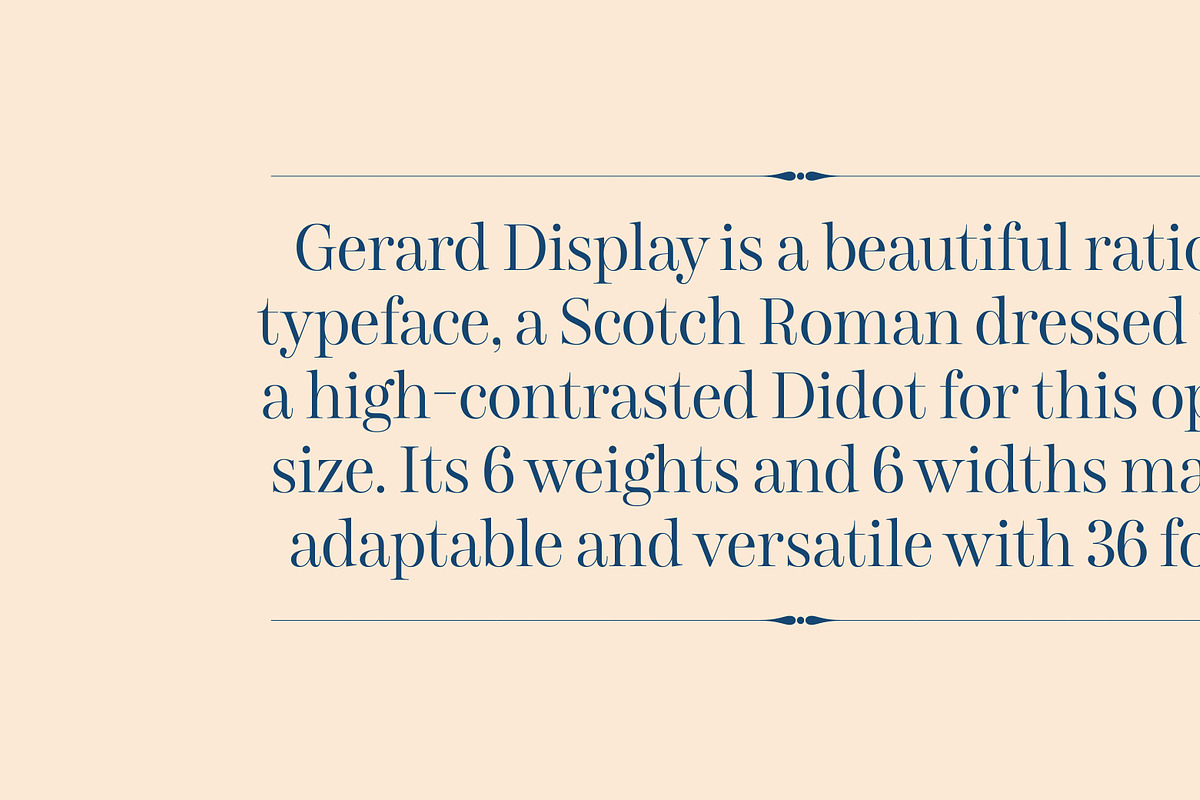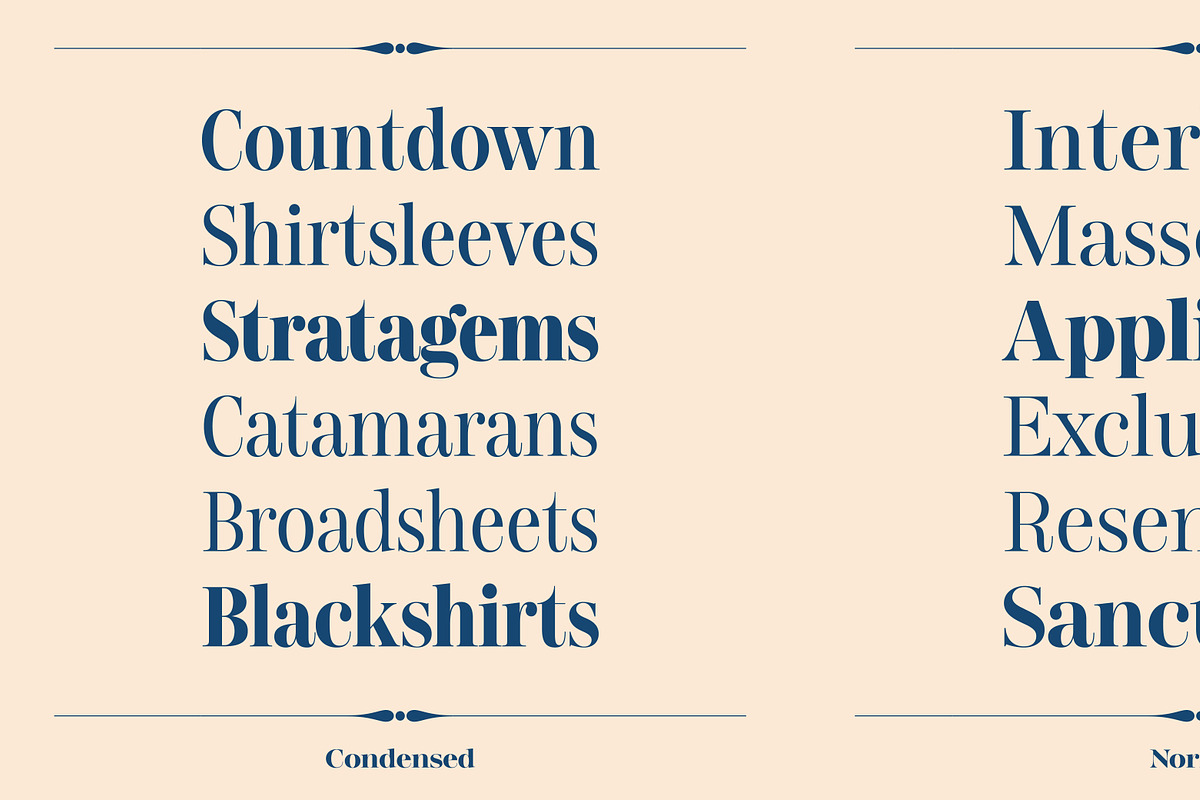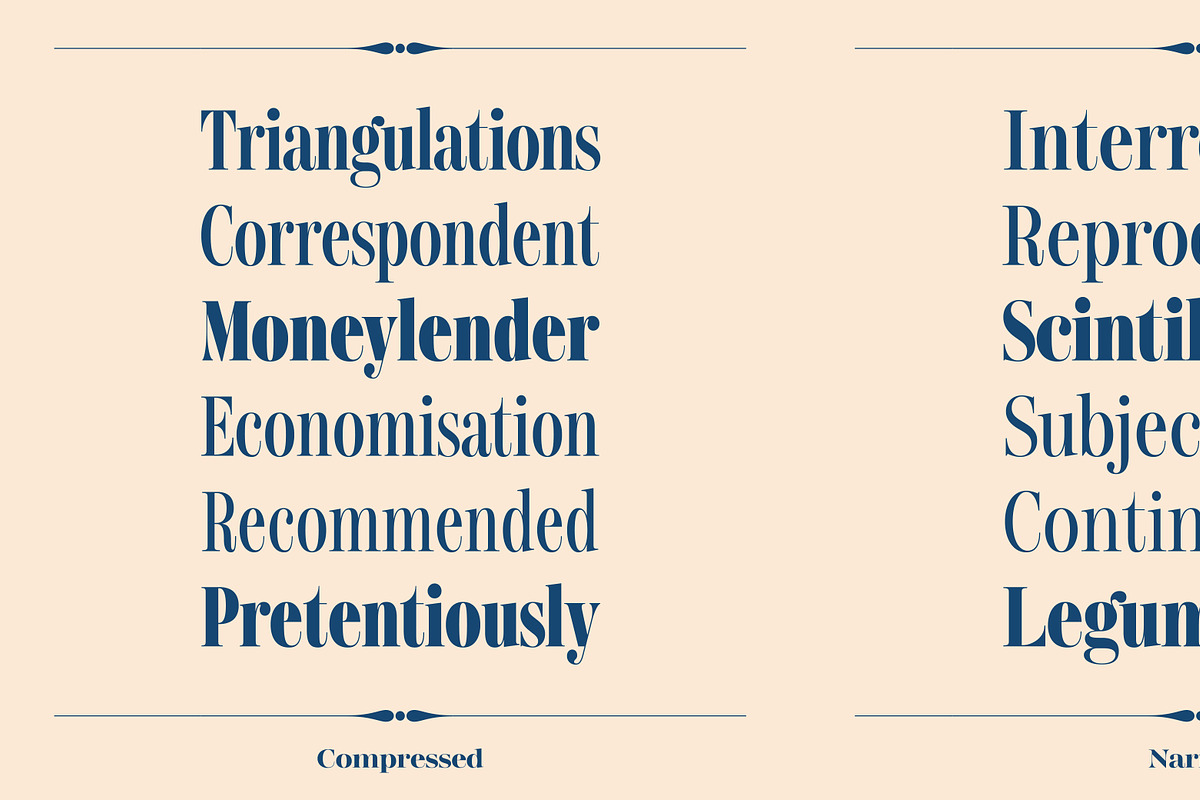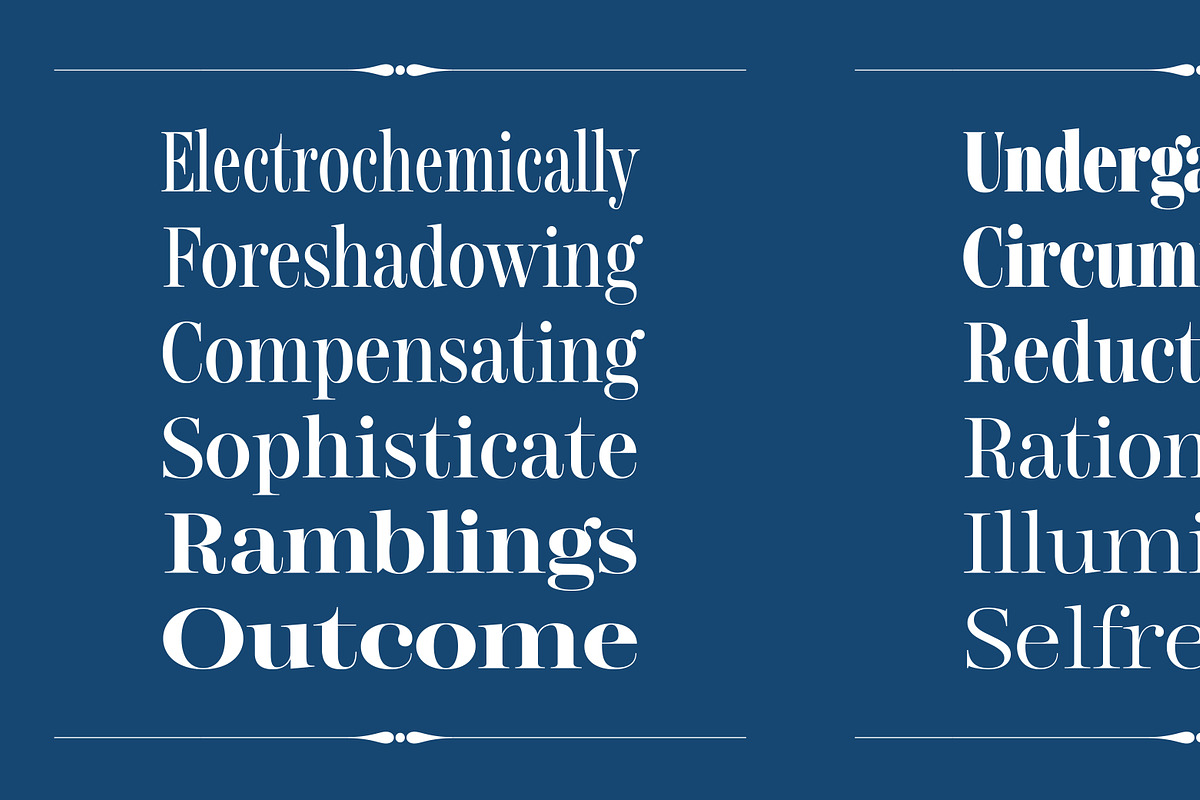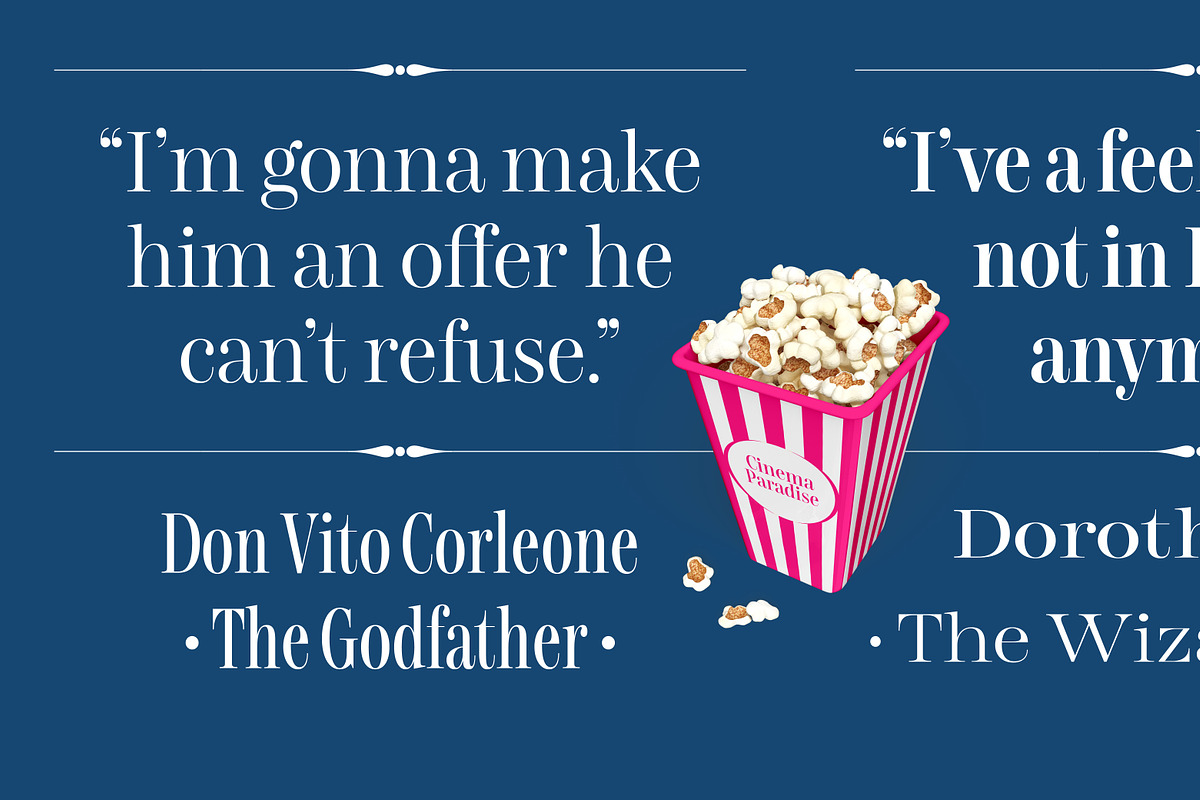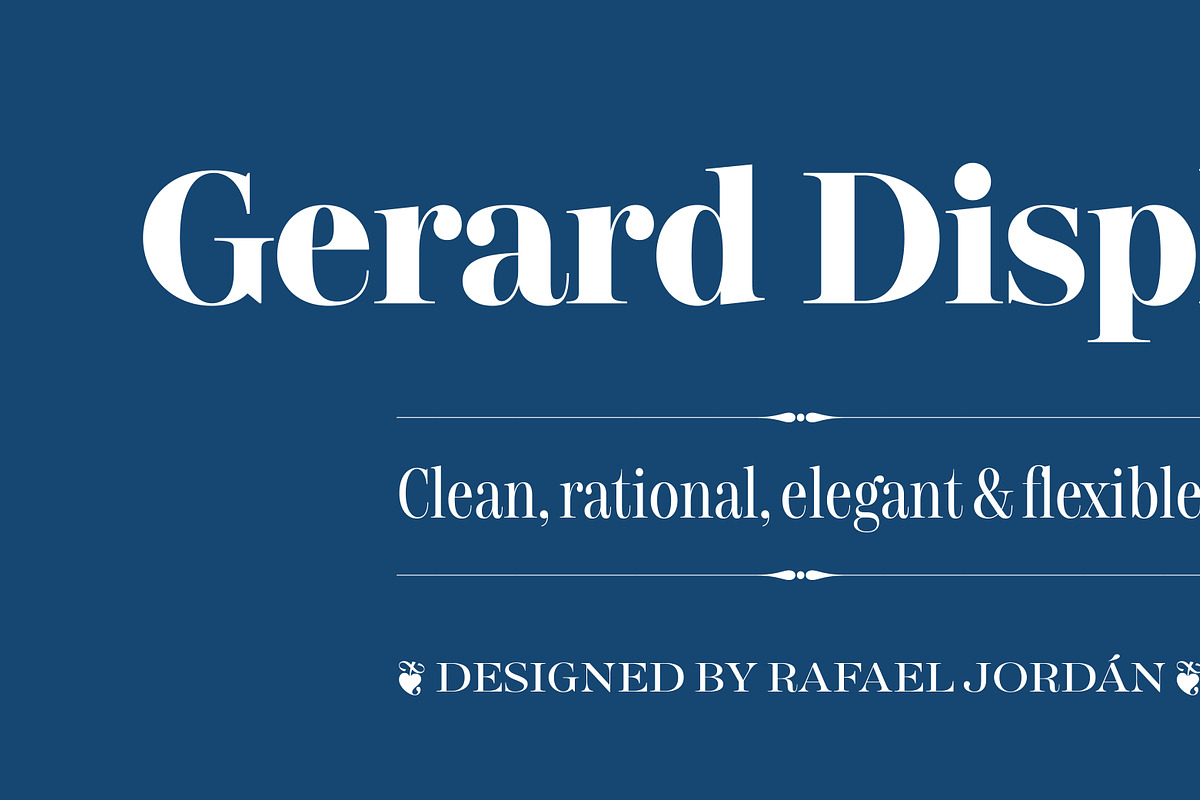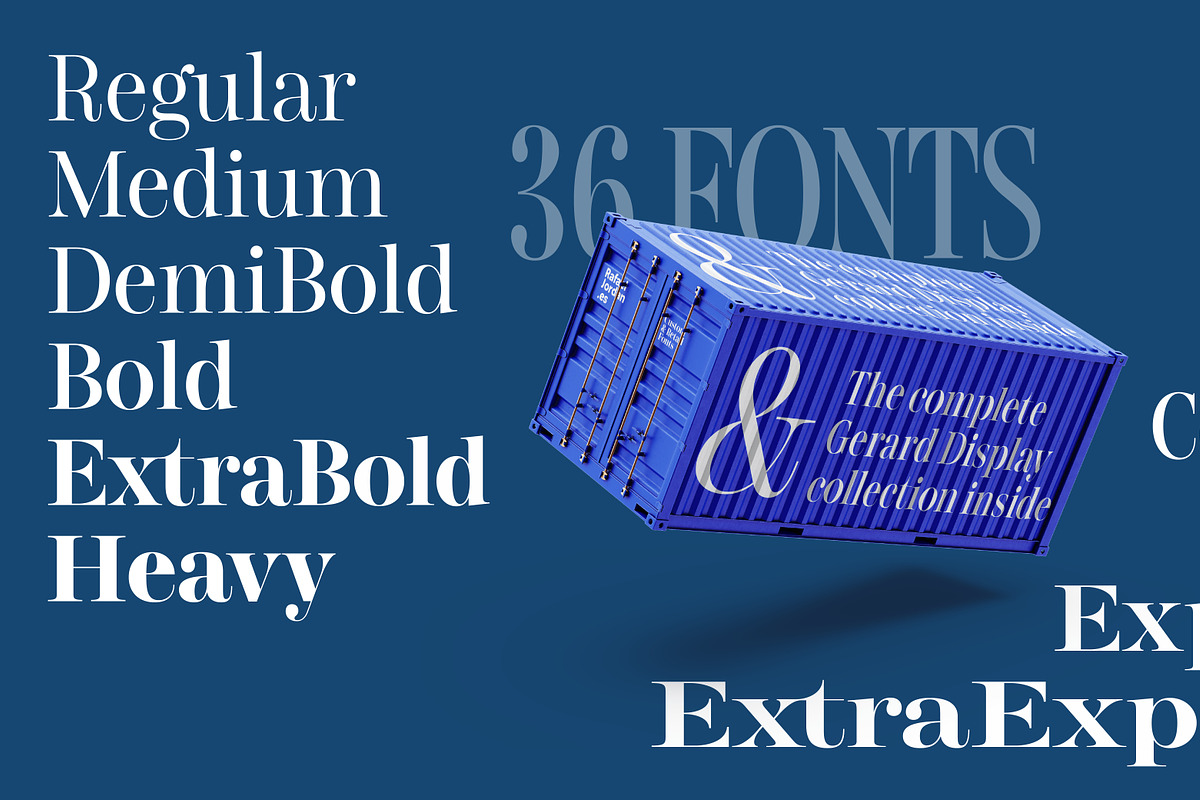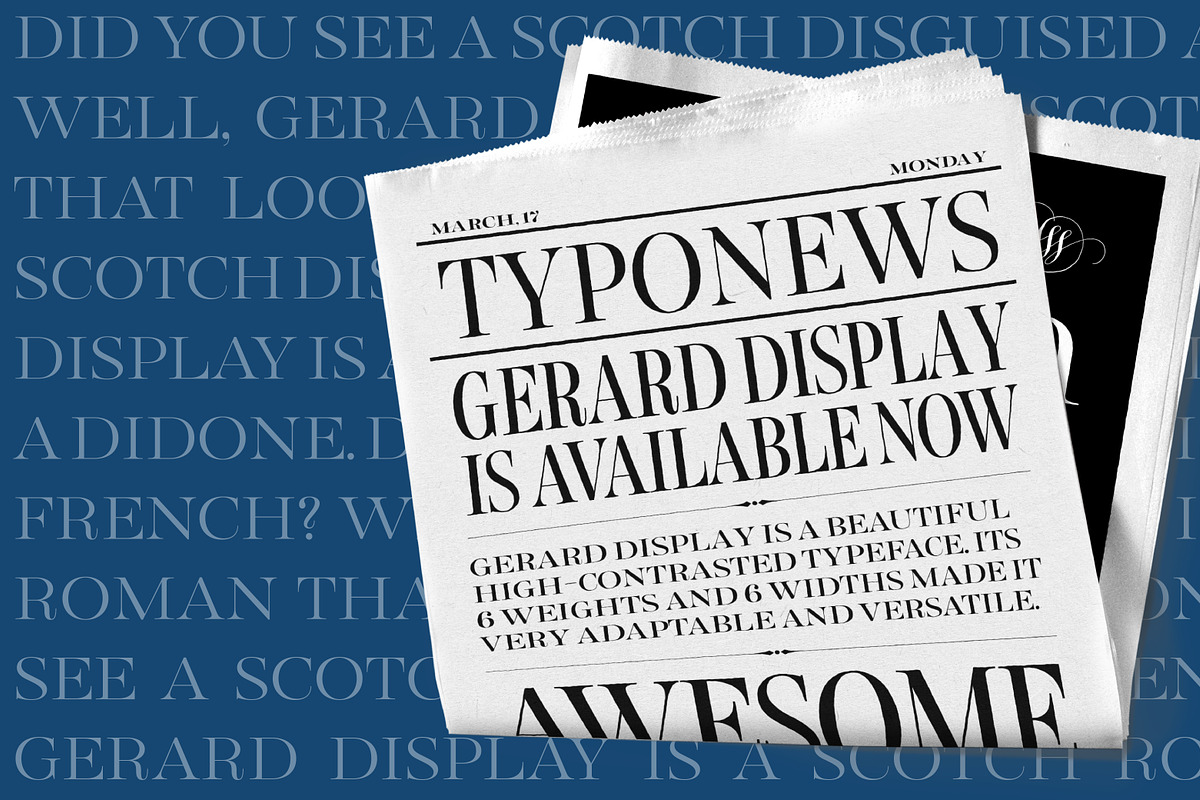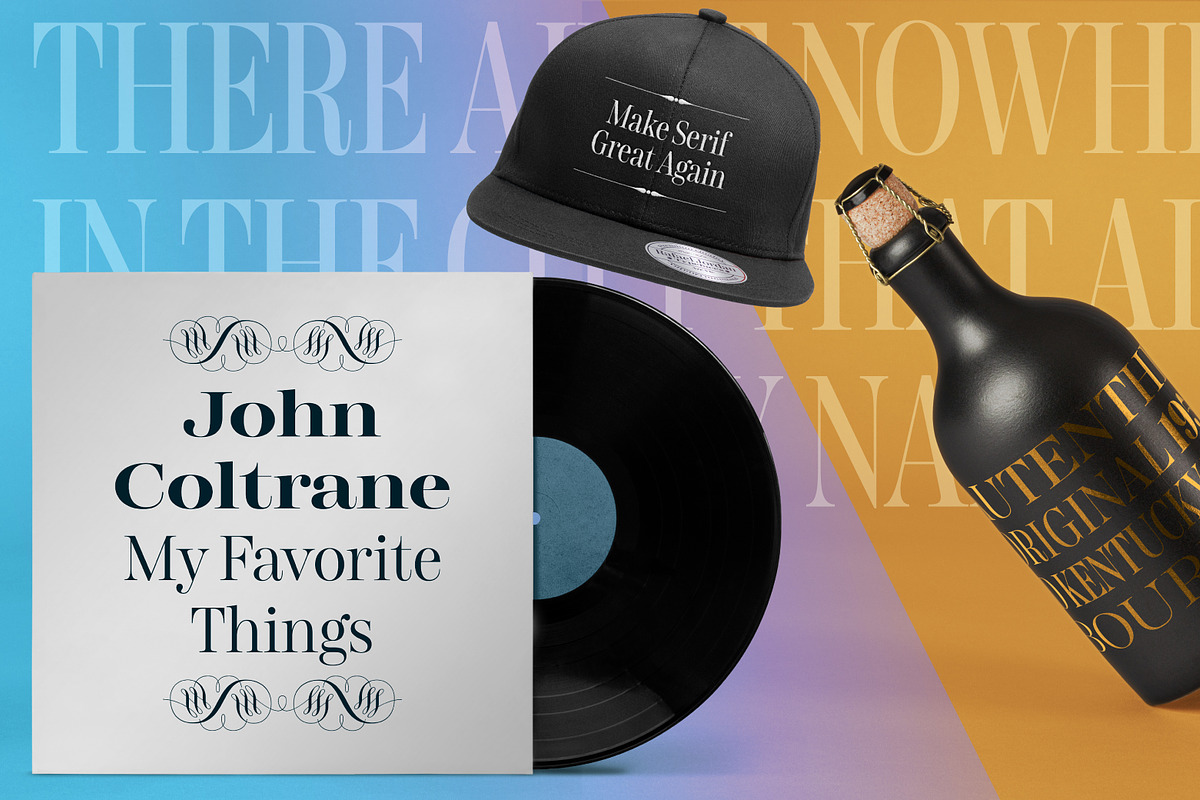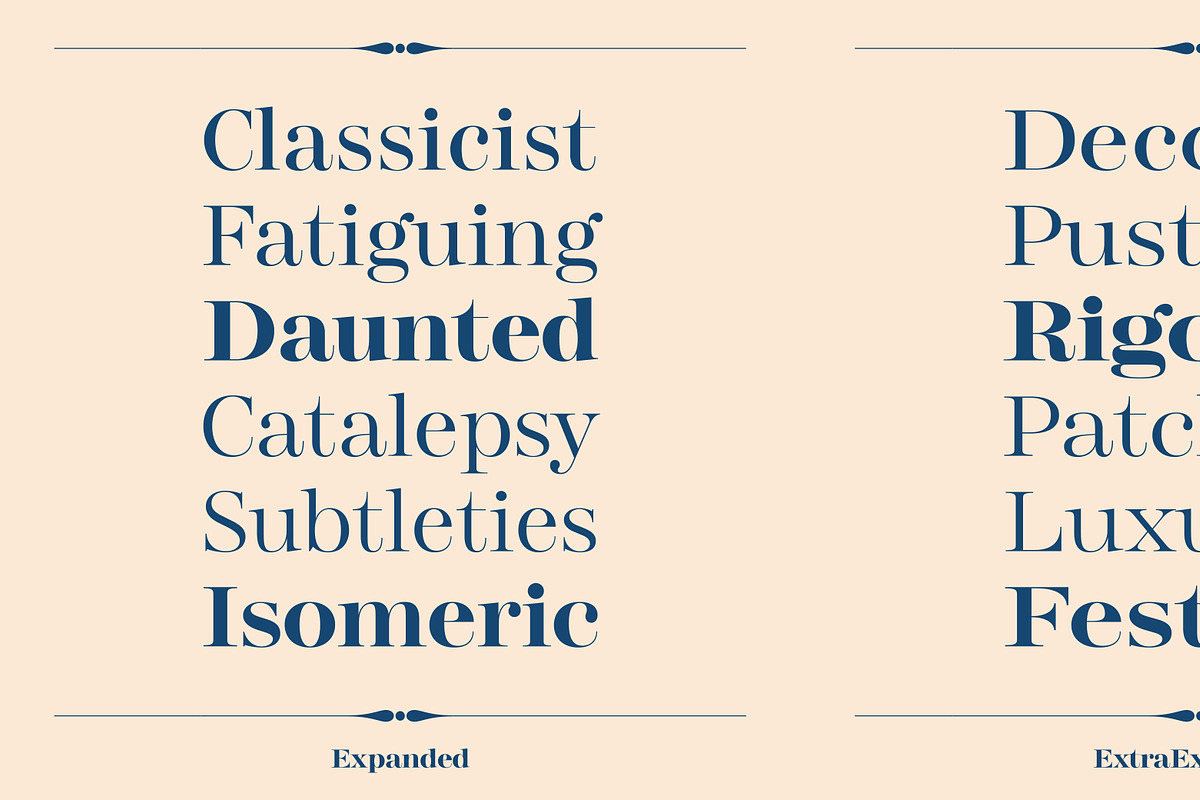
Gerard Display
Gerard Display is a high-contrast serif typeface inspired by Scotch Roman styles. It offers a wide range of weights and widths (6 each) for versatility in design applications. The font includes an extended character set supporting various Latin languages and features stylistic sets, local forms, and a complete set of figures.